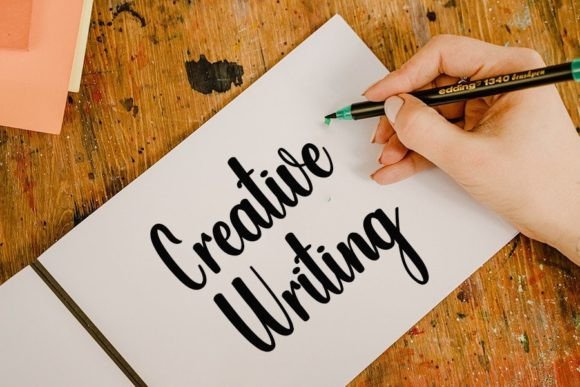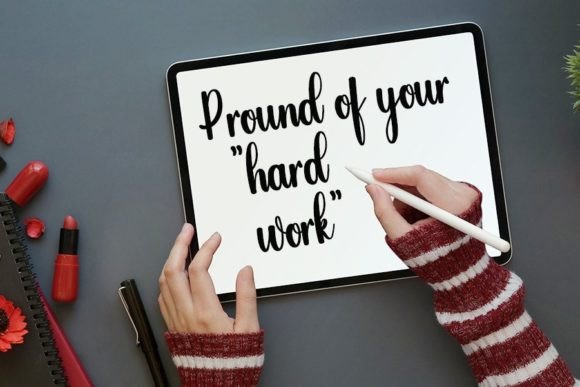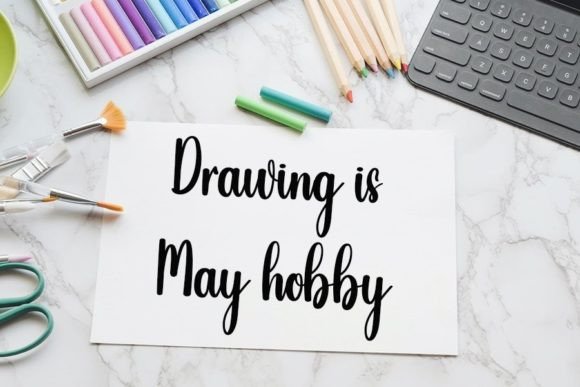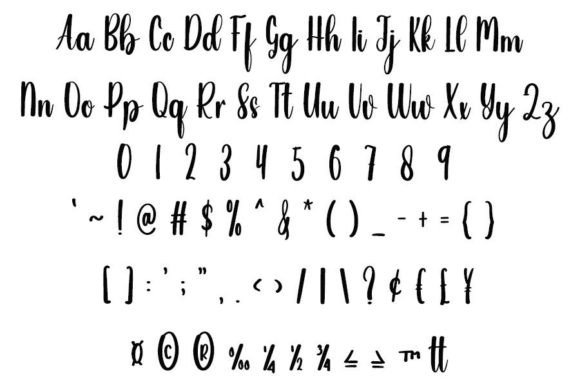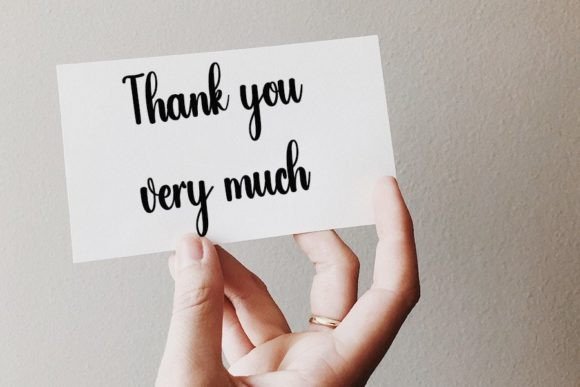
Introducing Handwritting Font: Elevate Your Designs with Elegance
Are you tired of using the same old fonts for your designs? Look no further! Handwritting Font is a beautiful, handwritten font that adds a touch of elegance to any project. With its unique and timeless style, this font is sure to capture the attention of your audience and leave a lasting impression.
The Beauty of Handwritting Font
Handwritting Font is a meticulously crafted font that exudes a sense of sophistication and refinement. Its elegant touch is perfect for designers and crafters who want to add a personal touch to their work. The font’s distinct style is characterized by its flowing lines, subtle curves, and precise lettering, making it a joy to use for a wide range of projects.
What Makes Handwritting Font Special?
- Unique Style: Handwritting Font boasts an incredibly distinct style that sets it apart from other fonts. Its elegant touch and timeless design make it perfect for creating spectacular designs that stand out.
- Versatility: This font is incredibly versatile and can be used for a wide range of projects, from wedding invitations and greeting cards to branding and advertising materials.
- Timeless Appeal: Unlike trendy fonts that quickly go out of style, Handwritting Font has a timeless appeal that ensures your designs will remain stylish and relevant for years to come.
Handwritting Font is a dream come true for designers and crafters who want to add a personal touch to their work. Whether you’re creating:
- Wedding Invitations: Add a touch of elegance to your wedding invitations and save the dates with Handwritting Font.
- Greeting Cards: Create beautiful greeting cards for special occasions, such as birthdays, anniversaries, and holidays.
- Branding Materials: Use Handwritting Font to create stunning branding materials, including logos, business cards, and letterheads.
- Art and Crafts: Add a personal touch to your art and craft projects, such as scrapbooking, journaling, and mixed media.
Tips for Using Handwritting Font
Handwritting Font is a beautiful, handwritten font that adds a touch of elegance to any project. With its unique and timeless style, this font is perfect for designers and crafters who want to create spectacular designs that stand out. Whether you’re working on a wedding invitation, greeting card, or branding material, Handwritting Font is sure to impress. So why wait? Fall in love with Handwritting Font and take your designs to the next level!